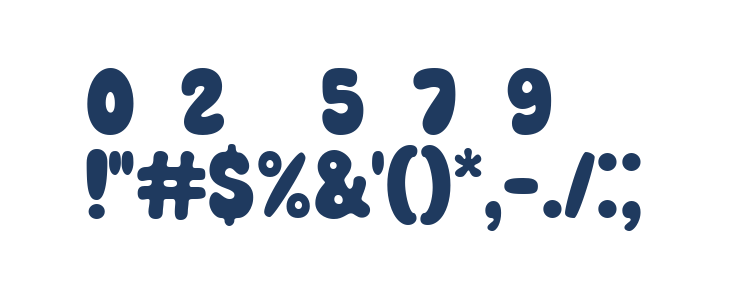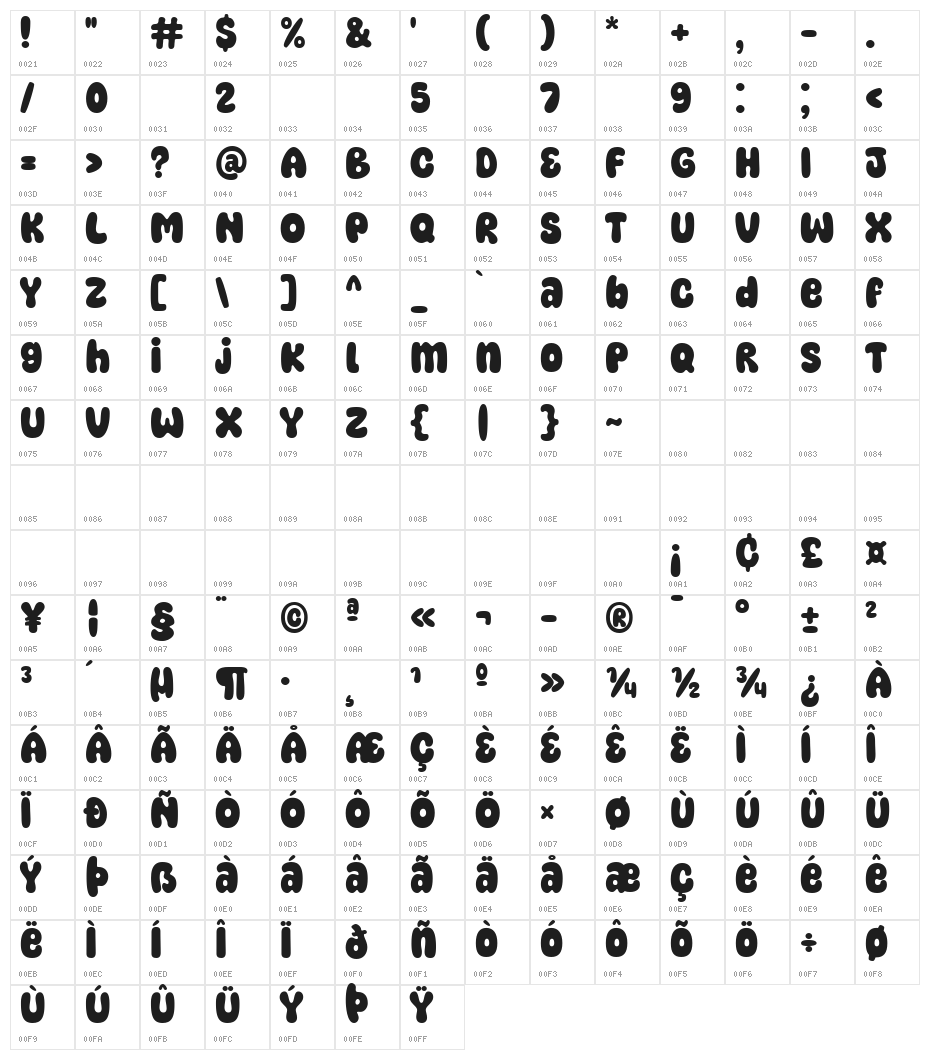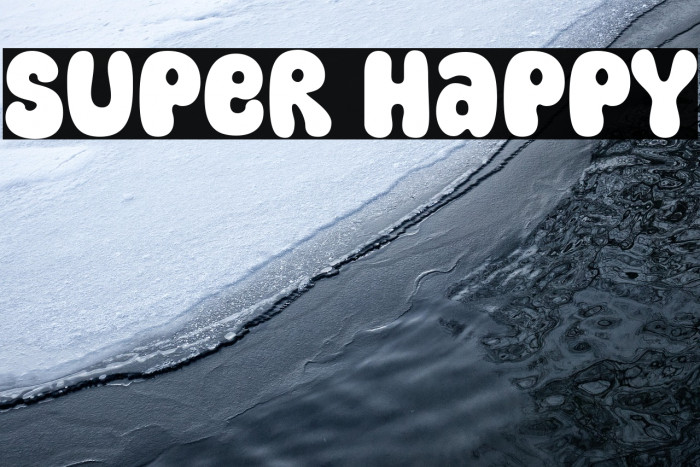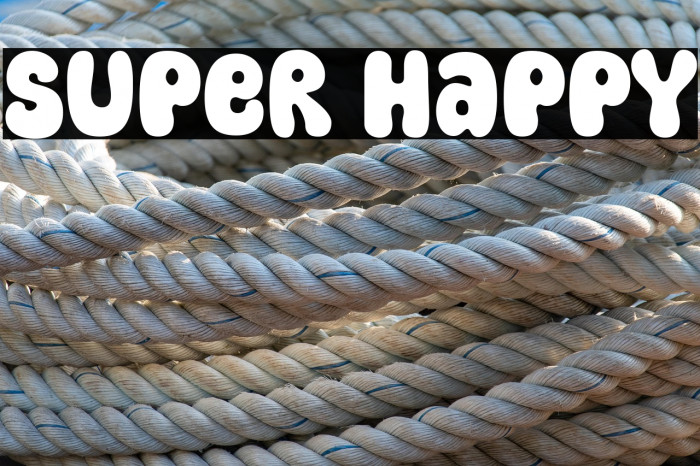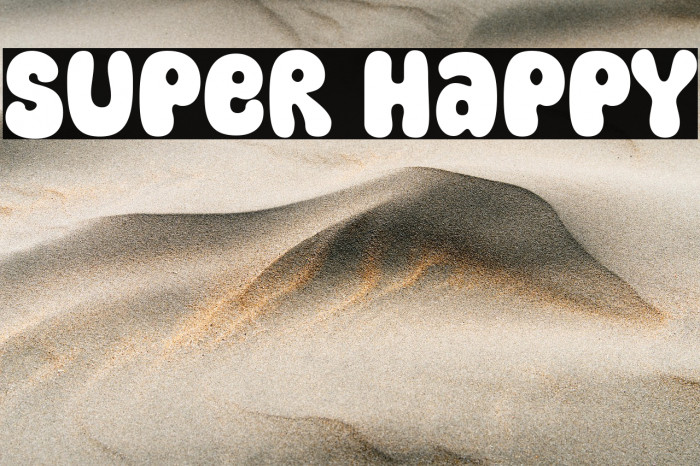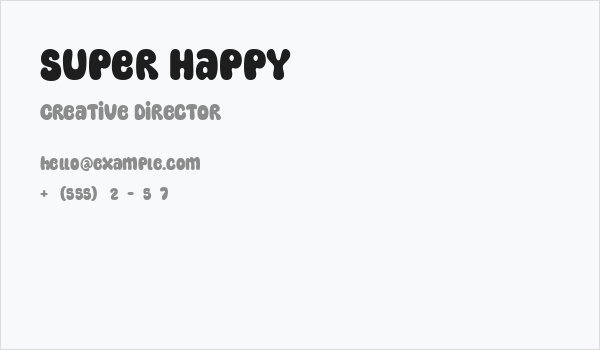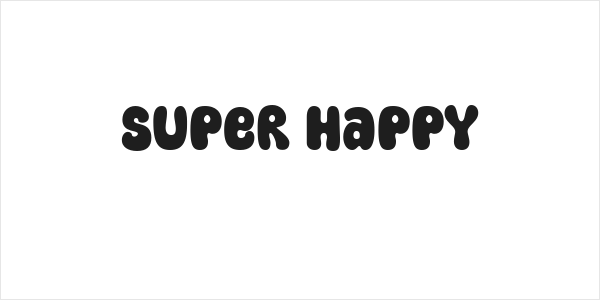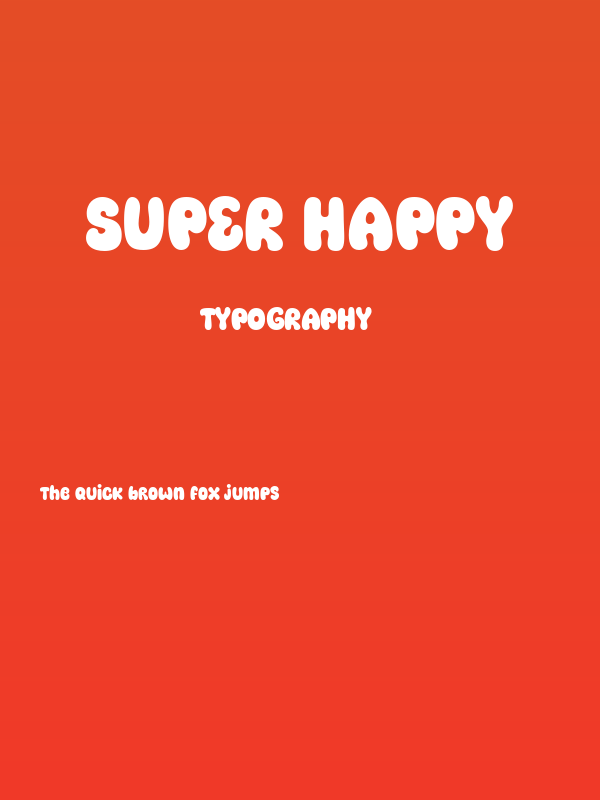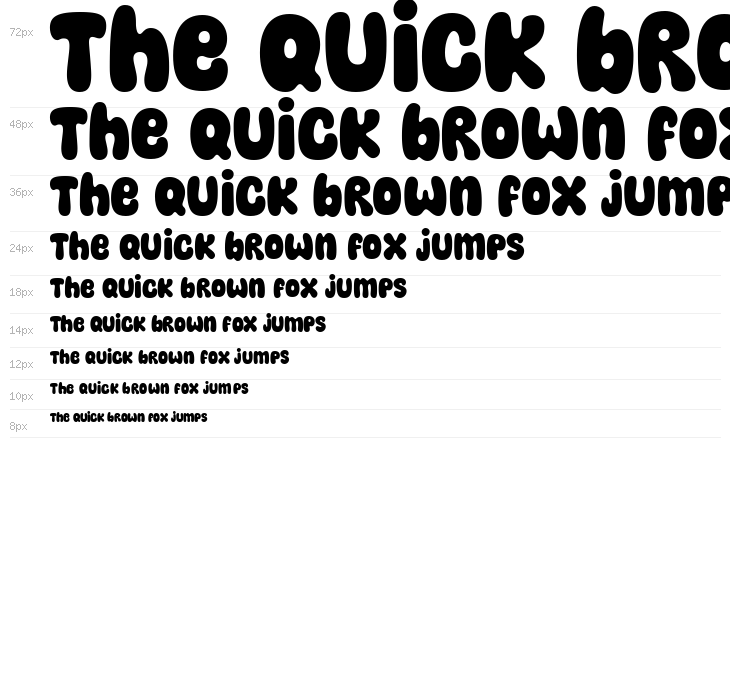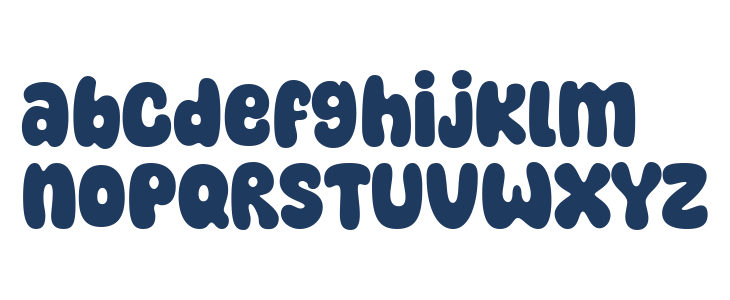
Super Happy Font
Super Happy Description
This playful and bold font features rounded, bubbly characters that exude a sense of fun and whimsy. The letters are thick and uniform, with a consistent stroke width that gives them a cohesive appearance. The rounded edges and lack of sharp angles contribute to a friendly and approachable feel. The font is highly legible, making it suitable for a variety of creative projects. Its unique style is perfect for capturing attention and conveying a sense of joy and excitement. The numbers and special characters maintain the same playful aesthetic, ensuring a harmonious look across all text elements.
| Overall Style | Playful, Fun |
| Proposed Projects | Ideal for children's books, playful branding, party invitations, and eye-catching posters. |